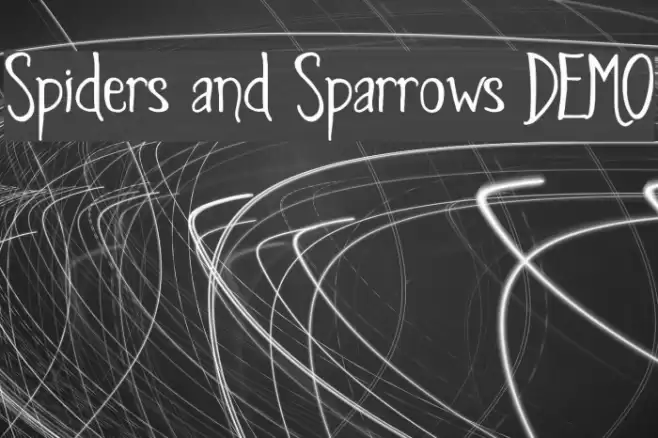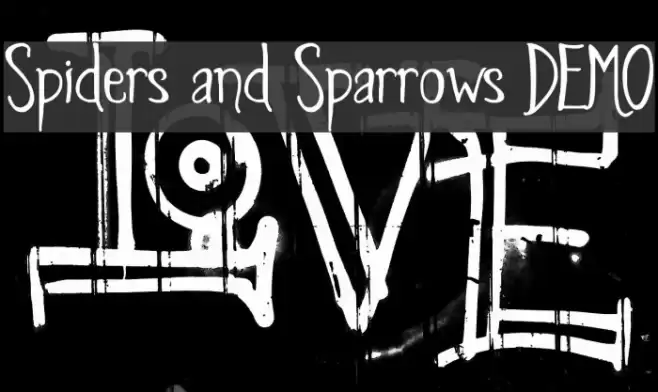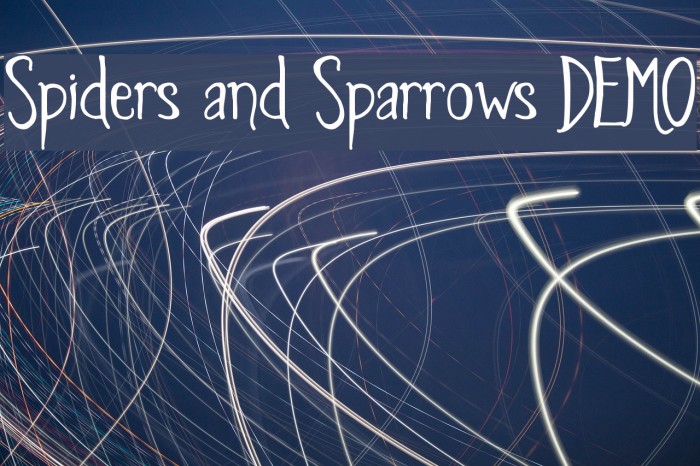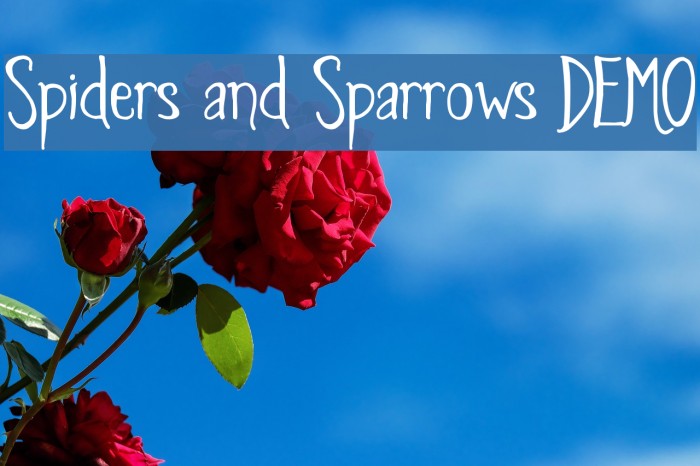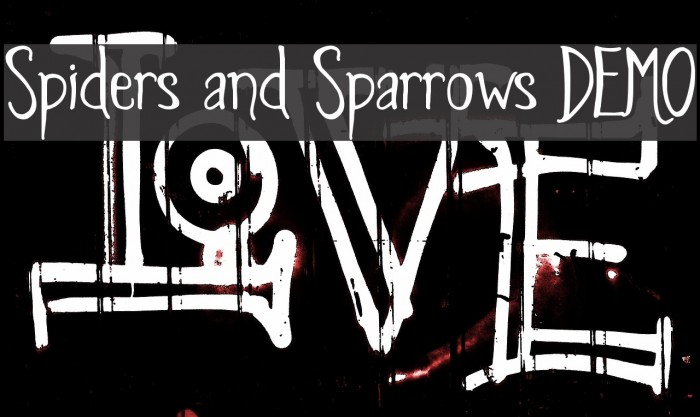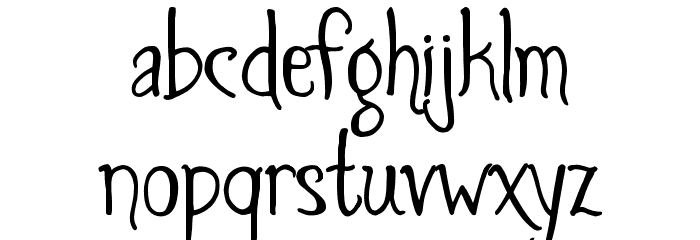
Spiders and Sparrows DEMO Font
Spiders and Sparrows DEMO Description
This font features a whimsical and playful design with a handwritten style. The letters are tall and slightly irregular, giving them a unique and artistic appearance. The strokes are varied in thickness, adding a dynamic and lively feel to the text. The overall look is casual and informal, making it suitable for creative and fun projects. The font maintains readability while offering a distinctive character, perfect for adding a personal touch to any design.
A whimsical, handwritten font with varied stroke thickness and a playful style from Uncategorized fonts.
- Proposed Projects: Ideal for greeting cards, children's books, creative posters, and playful branding.
- Overall Style: Playful, Artistic
- Use Case: Headlines, Creative projects, Informal designs